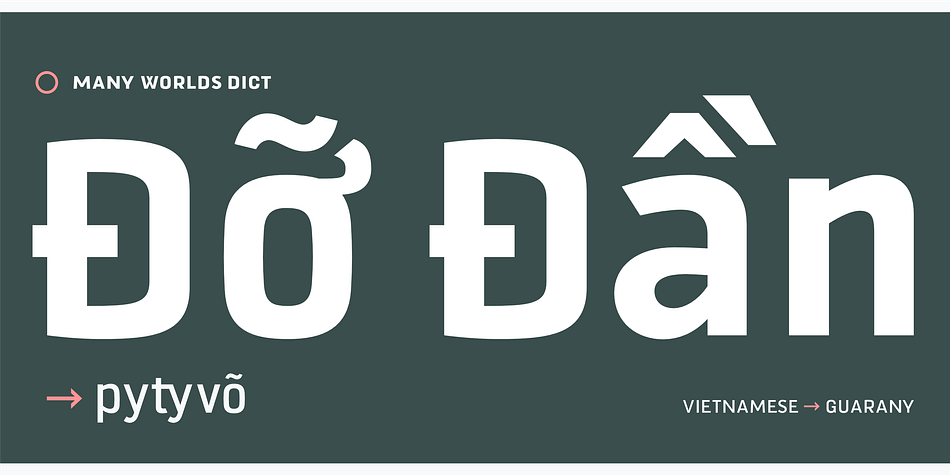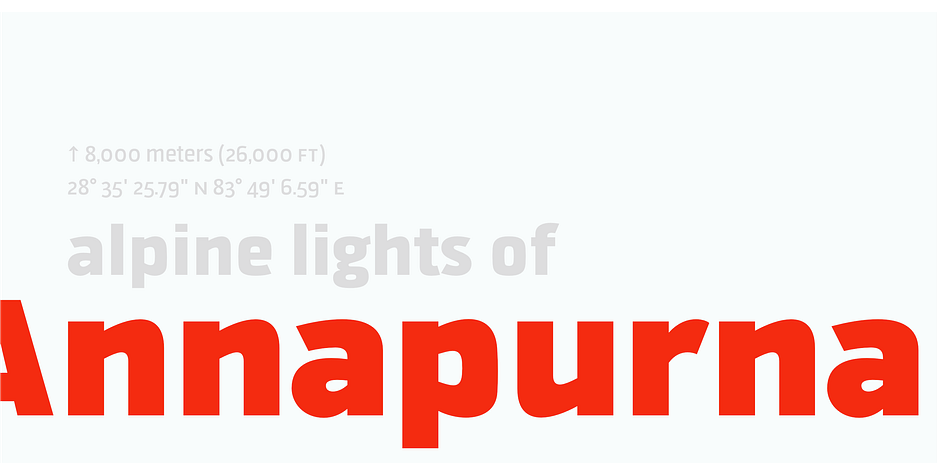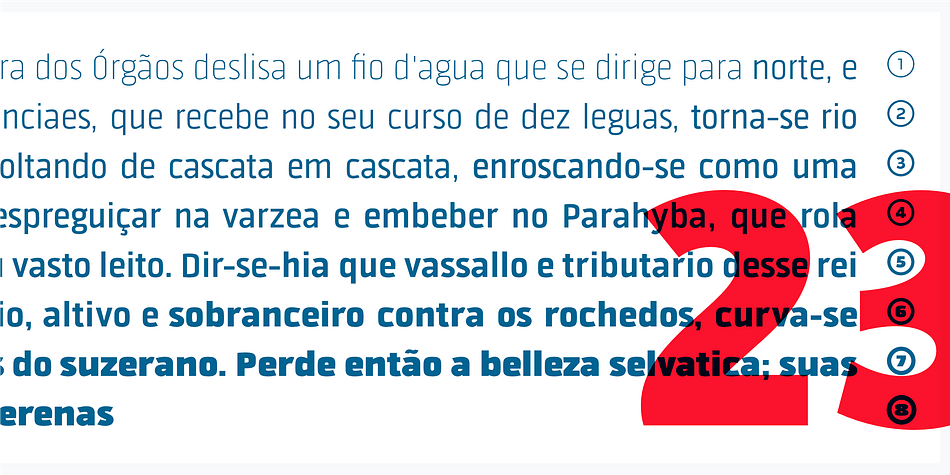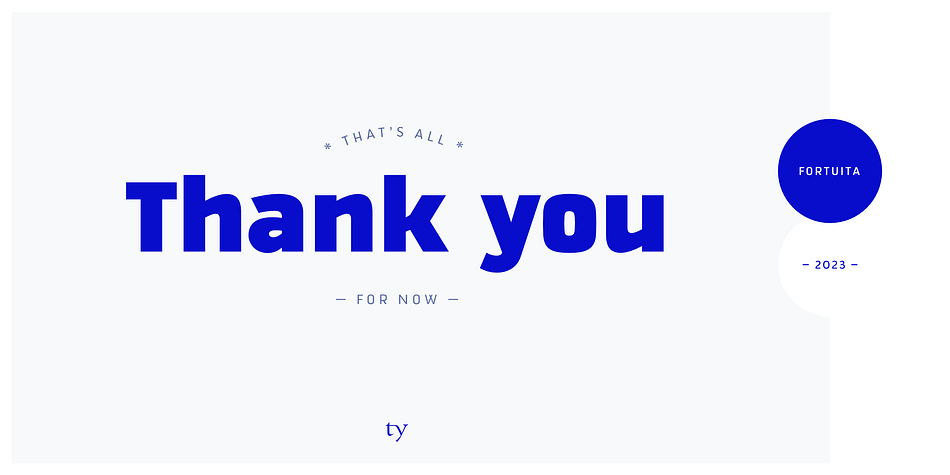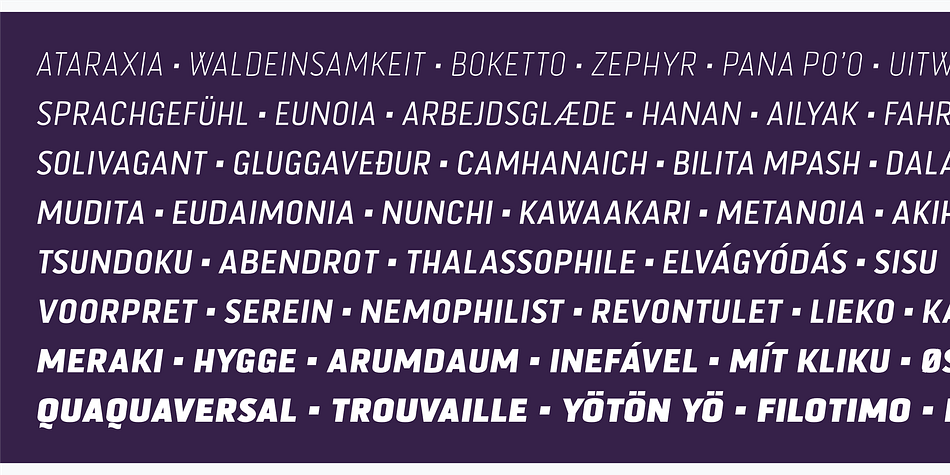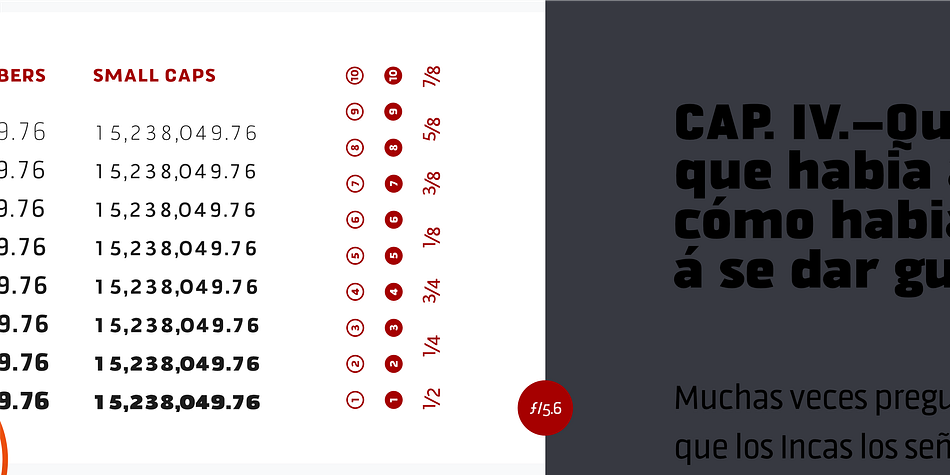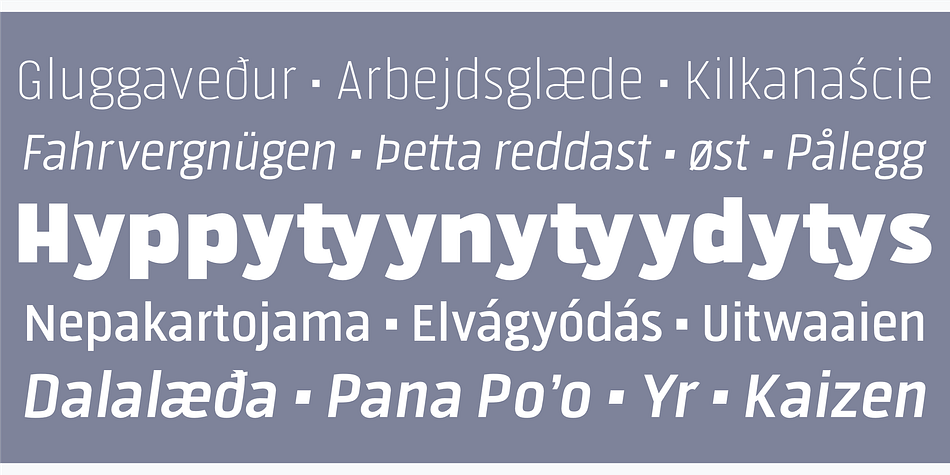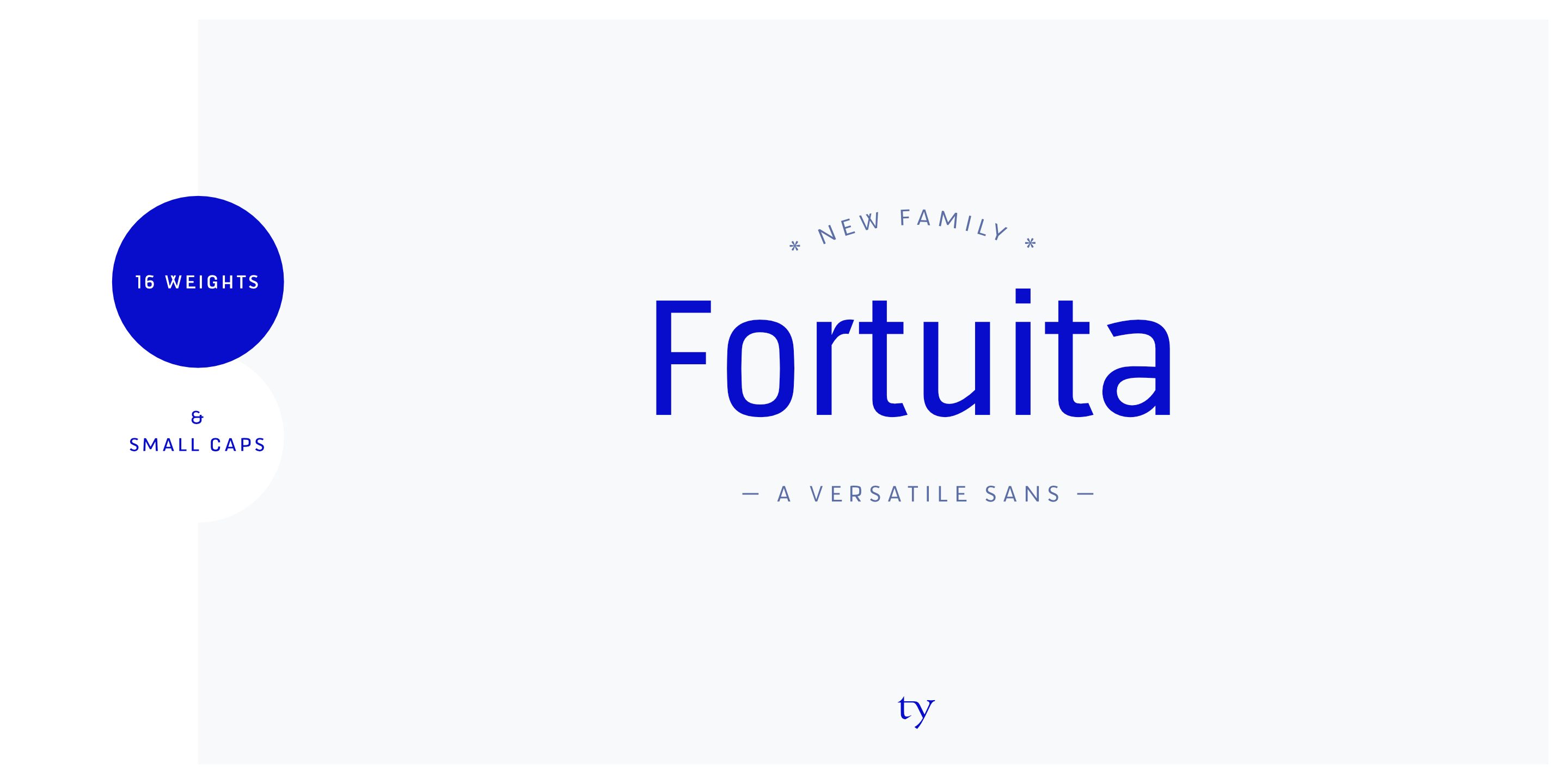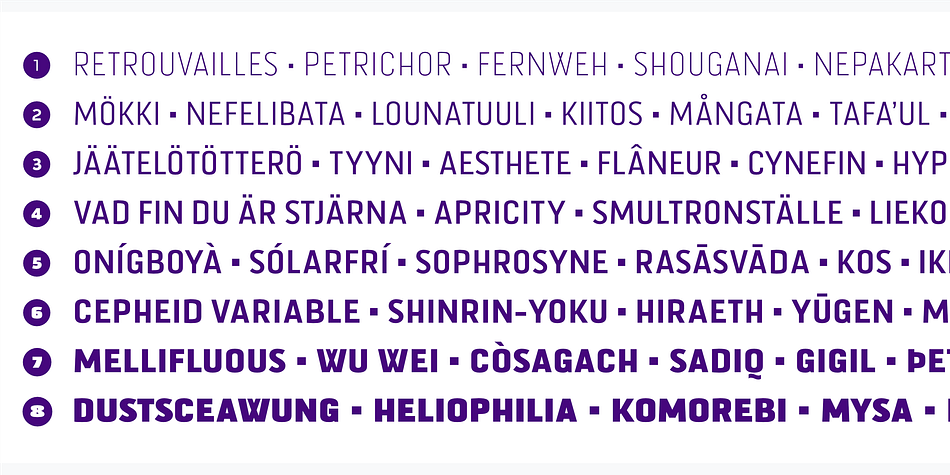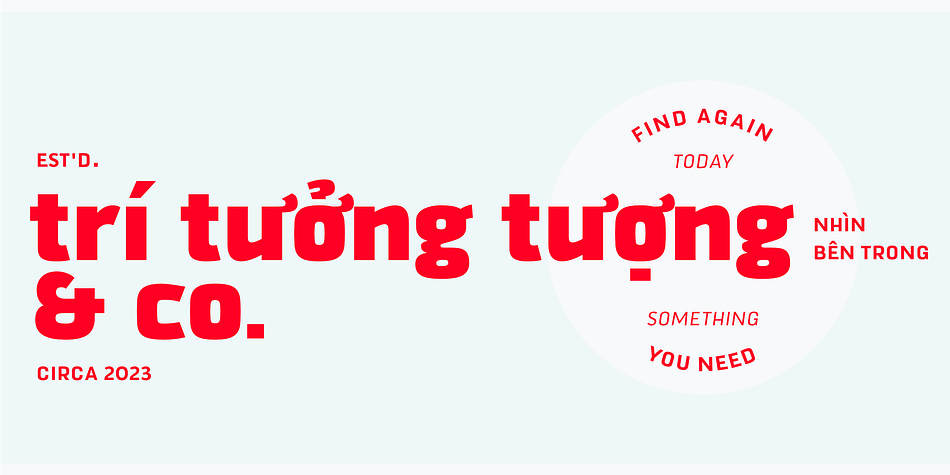
Fortuita
Designed by Thiago Oliveira, Fortuita is a sans serif font family. This typeface has sixteen styles and was published by Typographias.
Fortuita is a versatile sans fit for text or display. The name carries some of its history as it was born from logo sketches that fortuitously grew into a type family over eight years.
It comes with a tall x-height, rendering it readable at smaller sizes.
It has sixteen weights, eight regular ones, and their italics, each with small caps, something you may not see very often with sans serifs.
It counts with old-style numbers that can switch to its lining, small caps, or tabular versions through open-type features.
The family carries a distinct personality in its design that will lend itself to its subject, all the while without becoming distracting or detracting from it.